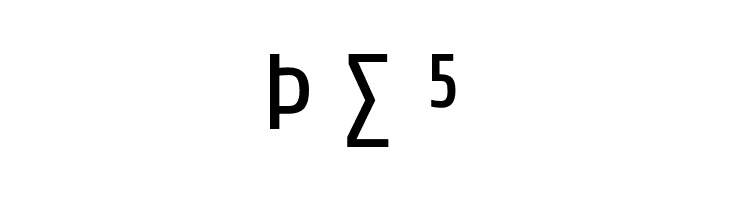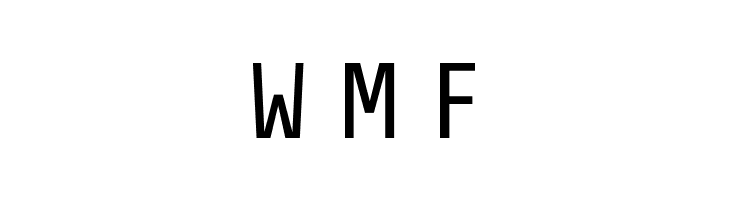
• Share
A modern, geometric sans-serif font with clean lines and excellent readability.
• Share Bold
A bold, modern sans-serif font with strong, clean lines.
• Share Bold
A bold, modern sans-serif font with clean and consistent letterforms.
• Share Bold Italic
A bold, italicized font with strong strokes and a modern, dynamic style.
• Share Italic
A modern, italicized sans-serif font with medium contrast.
• Share Italic
A modern sans-serif italic font with a clean and dynamic style.
• Share Regular
A clean and modern sans-serif font with balanced proportions and clear readability.
• Share-BoldExp
A bold, expansive font with a modern and strong aesthetic.
• Share-BoldItalic
A bold, italic font with a modern and assertive style.
• Share-BoldItalicExp
A bold, italicized font with expanded width, perfect for modern and impactful designs.
• Share-BoldItalicOSF
A bold, italicized font with a modern and professional look.
• Share-BoldOSF
A bold, modern font with clean lines and geometric structure.
• Share-ItalicExp
A modern italic font with slanted, streamlined letterforms and medium contrast.
• Share-ItalicOSF
A modern, italicized font with clean lines and balanced proportions.
• Share-Regular